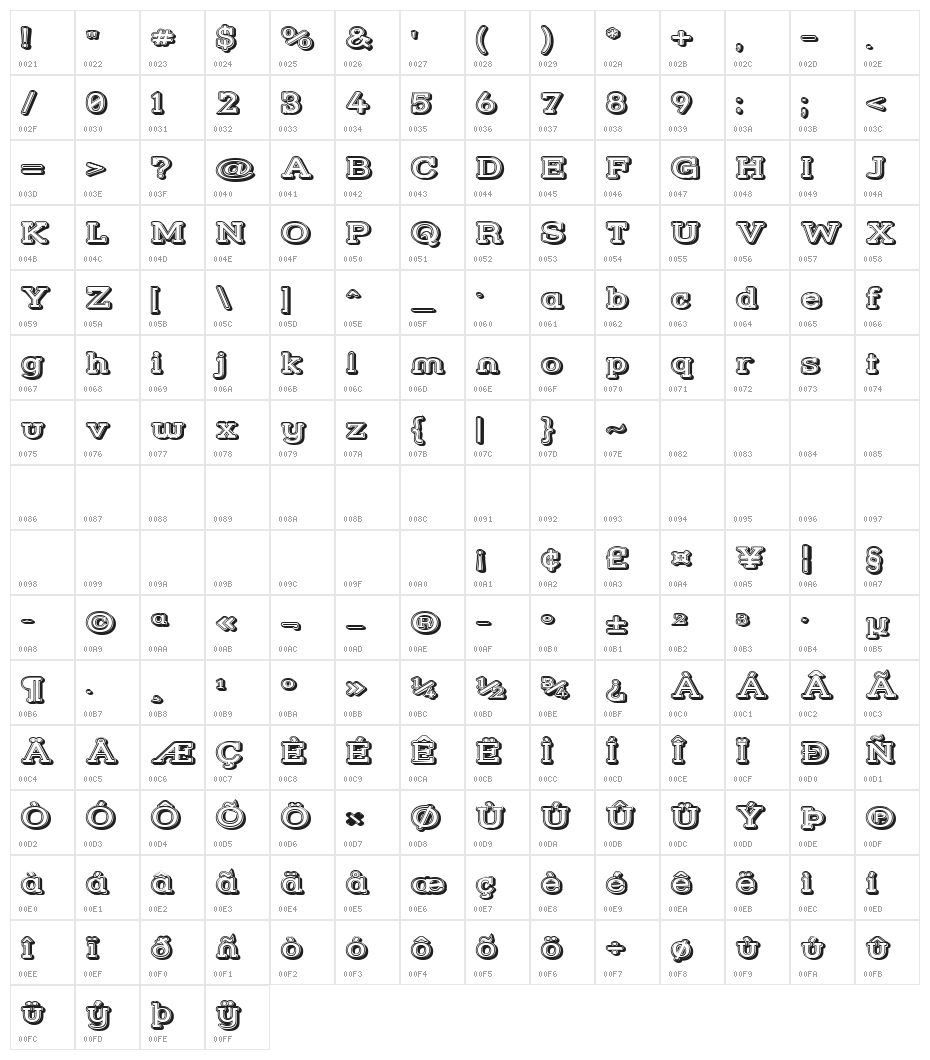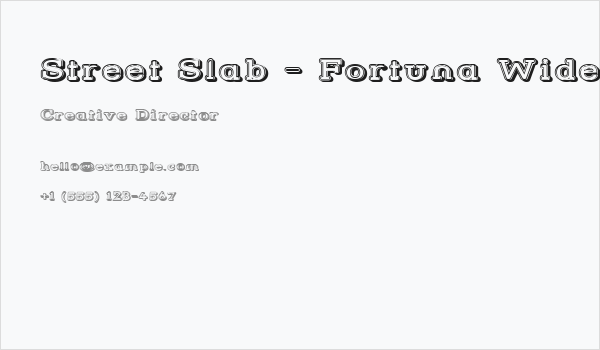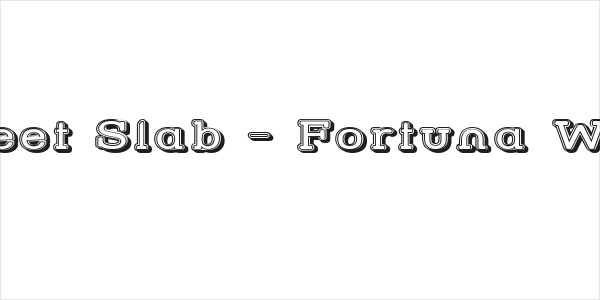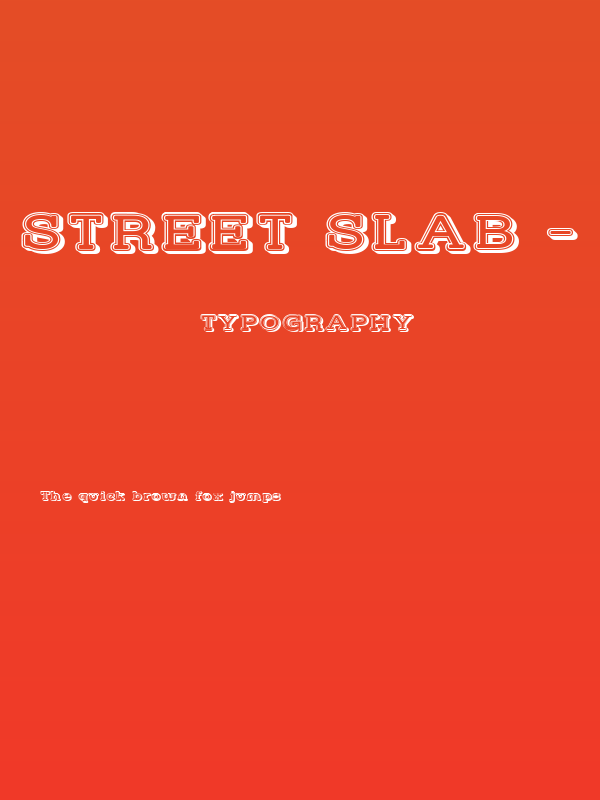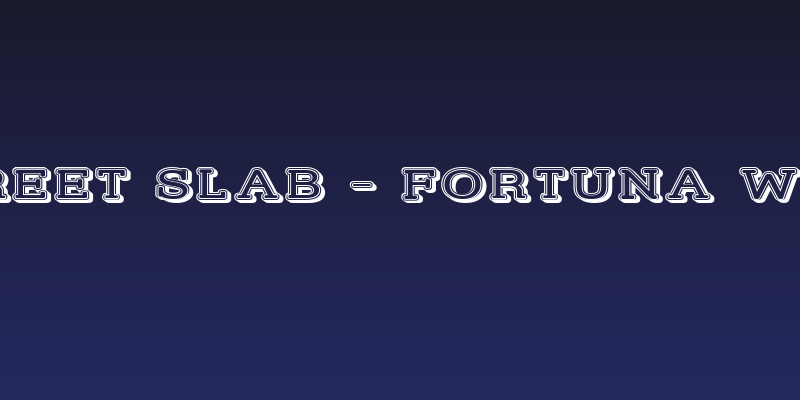
Street Slab - Fortuna Wide Font
Street Slab - Fortuna Wide Description
This font features a bold, slab serif style with a distinct three-dimensional effect created by its layered outline. The characters are wide and have a strong presence, making them ideal for attention-grabbing designs. Each letter is crafted with a shadow effect that adds depth and dimension, enhancing its decorative appeal. The uppercase and lowercase letters maintain a consistent style, while the numerals and special characters complement the overall design. The font's boldness and unique style make it suitable for a variety of creative projects.
| Proposed Projects | Ideal for posters, headlines, branding, and any design requiring a strong visual impact. |